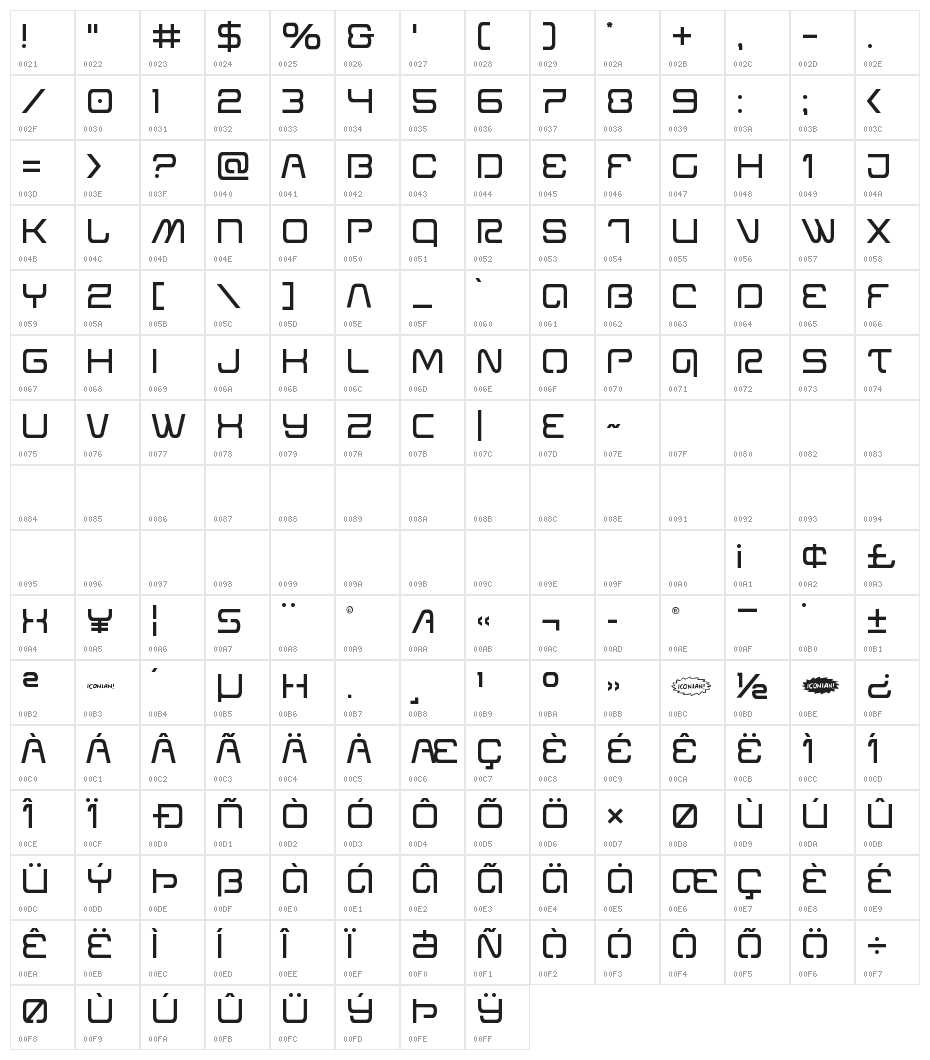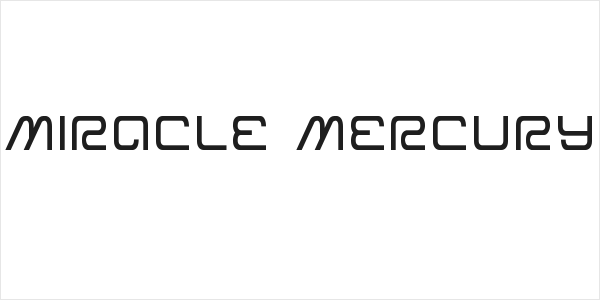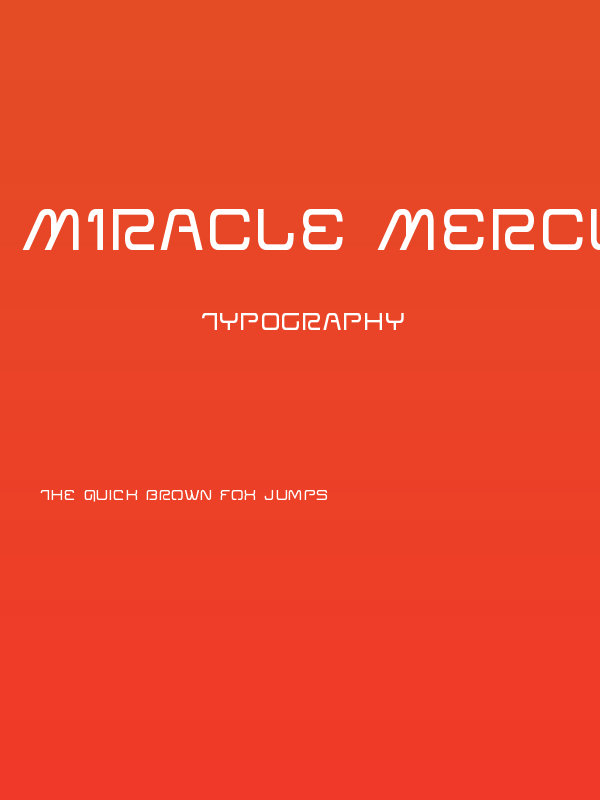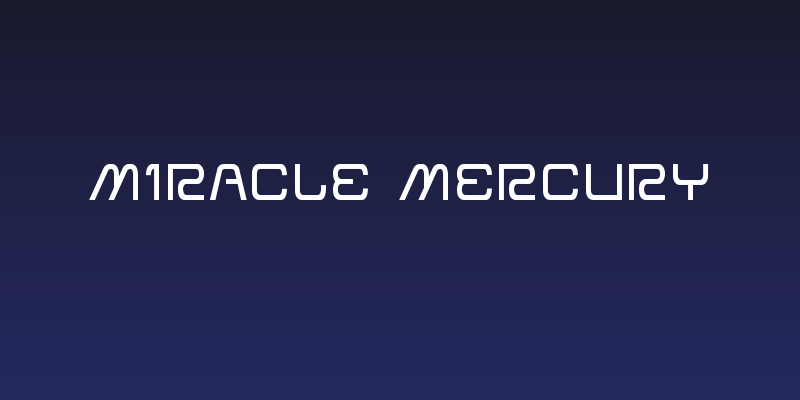
Miracle Mercury Font
Miracle Mercury Description
This font features a futuristic and geometric design, characterized by its clean lines and rounded edges. The uppercase and lowercase letters maintain a consistent height, creating a uniform appearance. The numerals are distinct and easily readable, with a modern aesthetic that complements the overall style. Special characters are designed with the same attention to detail, ensuring they blend seamlessly with the alphabetic characters. The font's structure is both bold and minimalistic, making it suitable for a variety of design applications where a contemporary and sleek look is desired.
| Use Case | Headlines, Logos, Digital interfaces |
| Proposed Projects | Ideal for technology branding, modern posters, sci-fi book covers, and digital interfaces. |